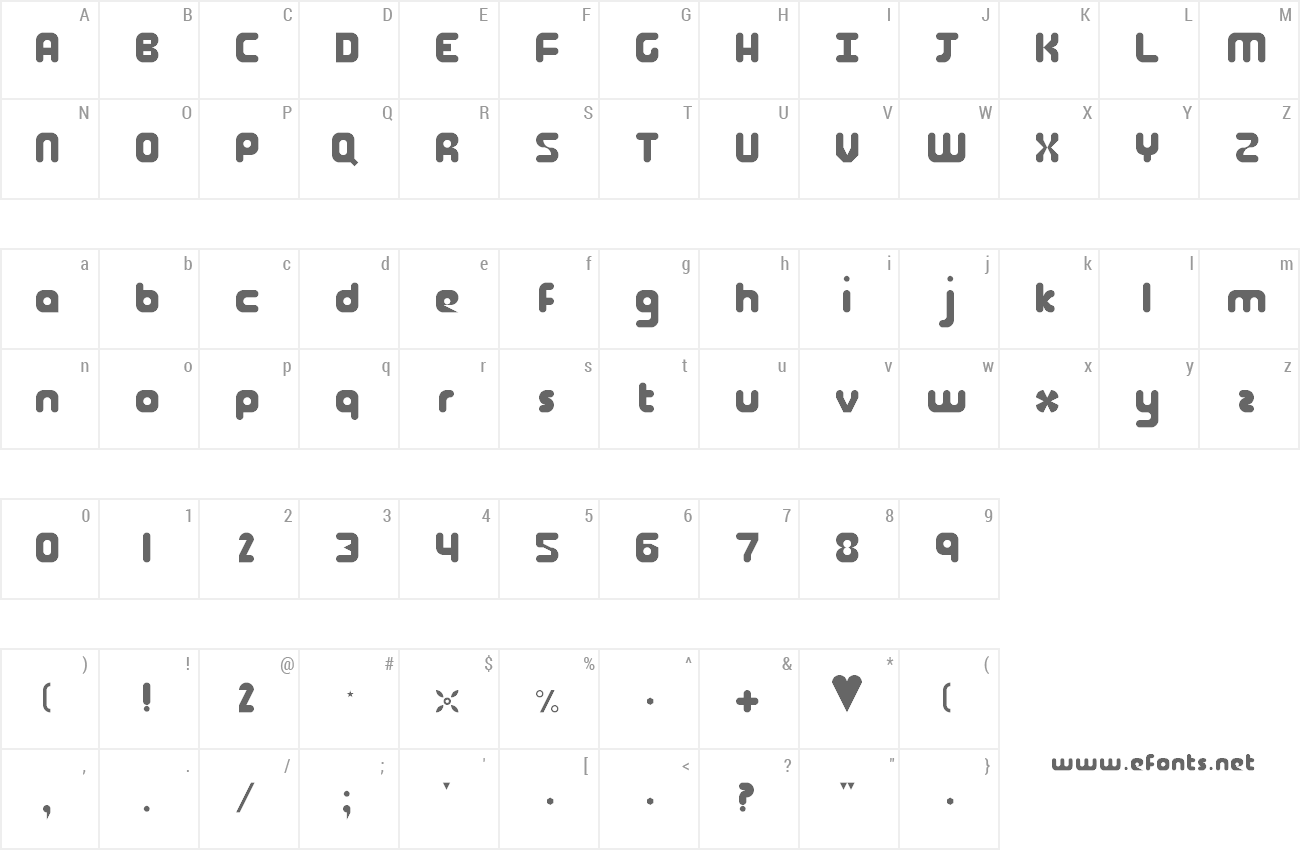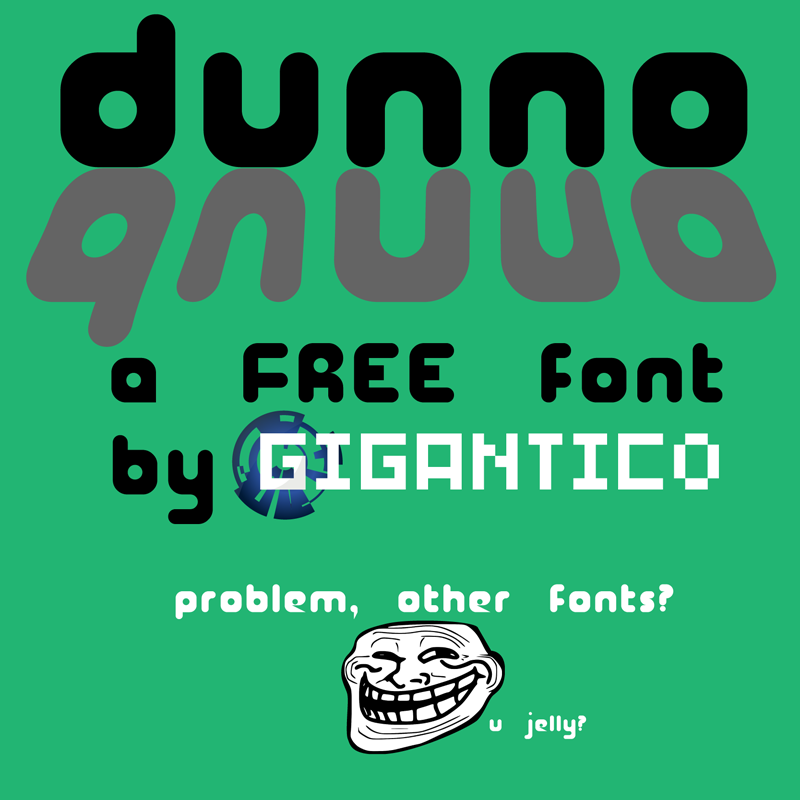
Preview and download Dunno Font. Created by Matt Bruinooge in Techno Various styles with Free for personal use license.
| Font name: | Dunno |
| Author: | Matt Bruinooge |
| Note by Matt Bruinooge | |
| This font was created for titles, giving it a rounded, interesting look. Best when used in lower case or as a header. |